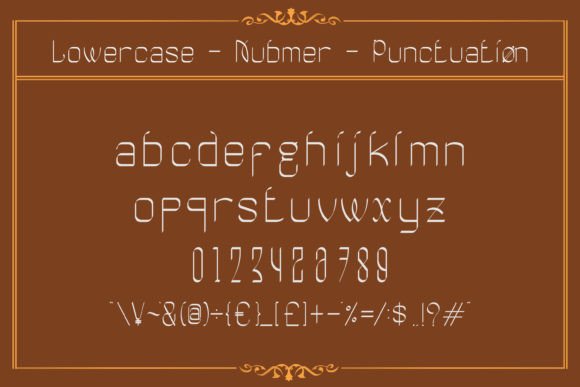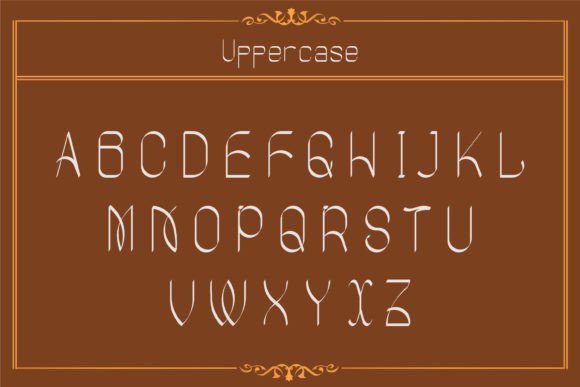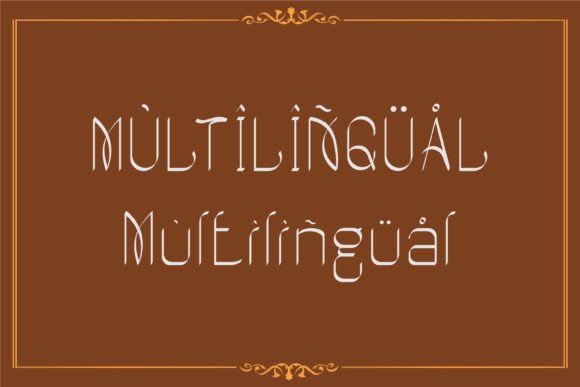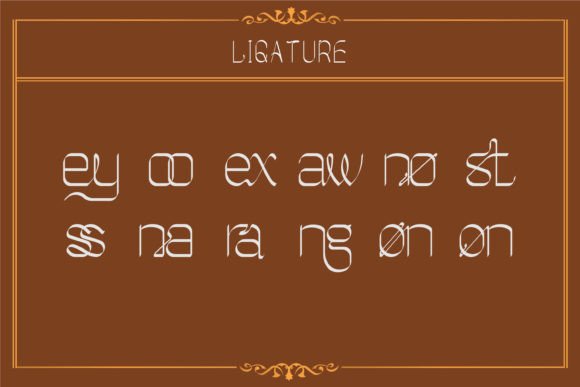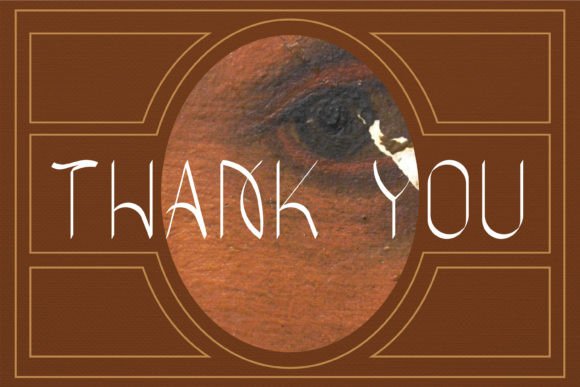
Introduction to Namera Font
You’re sitting in front of your computer, staring at a blank canvas, trying to decide on the perfect font to bring your creative project to life. The cursor blinks, taunting you with its silence. Suddenly, a spark of inspiration strikes, and you start typing away. But, what if you could elevate your design to the next level with a font that’s as versatile as it is elegant?
Enter the Namera Font, a stylish, thin-lettered sans serif font that effortlessly blends classical features with modern accents. This design resource is a game-changer for any creative project, from sleek logos to high-quality typography. Whether you’re working on a project with a transparent background or need a font that exudes sophistication, the Namera Font is the perfect addition to your toolkit.
Key Features of Namera Font
- Unique characteristics include a modern, minimalist aesthetic and a wide range of typographic styles.
Honest Review: Namera Font
I recently stumbled upon the Namera Font, and I’m excited to share my thoughts on this design resource. As a designer, I’m always on the lookout for high-quality fonts that can elevate my creative projects.
The font is available in a range of weights, from light to bold, making it versatile for various design applications. The Namera Font is also fully scalable, so you can use it for everything from small text to large headings.
Limitations: ⚠️ While the Namera Font is a great addition to any design arsenal, it may not be suitable for projects that require a more traditional or classic look. Additionally, the font may not be as legible in small text sizes.
Overall impression: I’m impressed with the Namera Font’s modern design and versatility. It’s a great resource for designers who want to add a touch of sophistication to their creative projects. With its high quality and free download, I highly recommend the Namera Font to anyone looking for a great design resource.
- Unique and modern design
- Range of weights (light to bold)
- Scalable for various design applications
Namera Font
Tips for Getting the Most Out of Namera Font
Experiment with different font sizes and styles to create a unique look for your project. You can also combine the Namera Font with other design elements to add depth and visual interest.
The Namera Font is perfect for creating eye-catching headings, titles, and logos. It’s also great for adding a touch of elegance to your business cards, brochures, and other marketing materials.